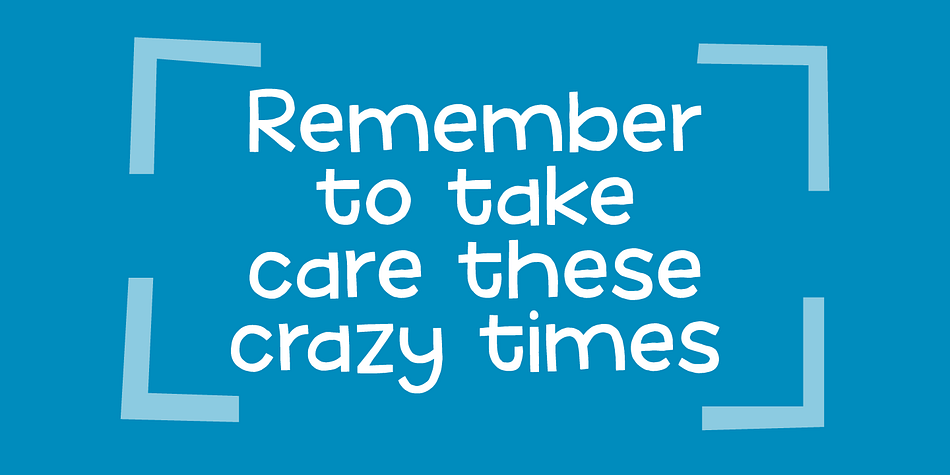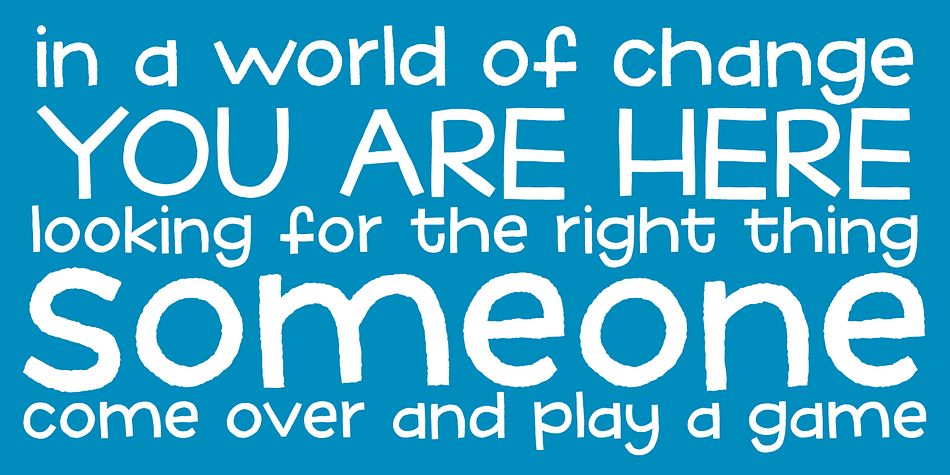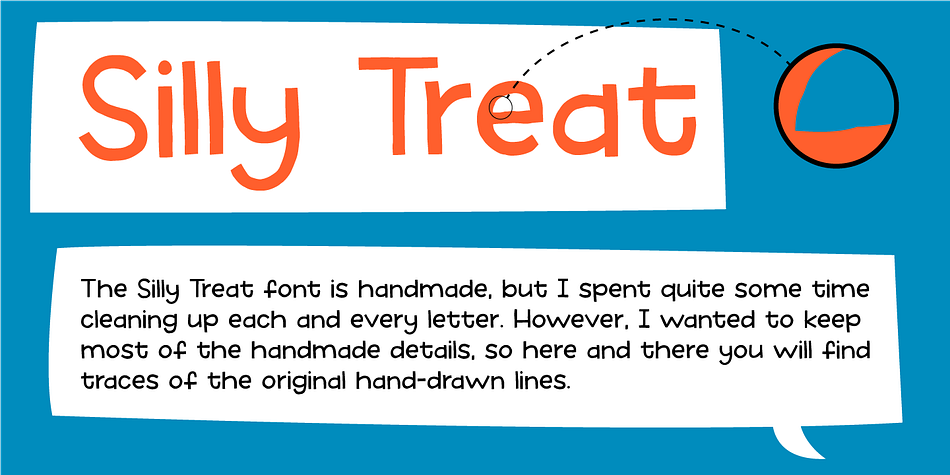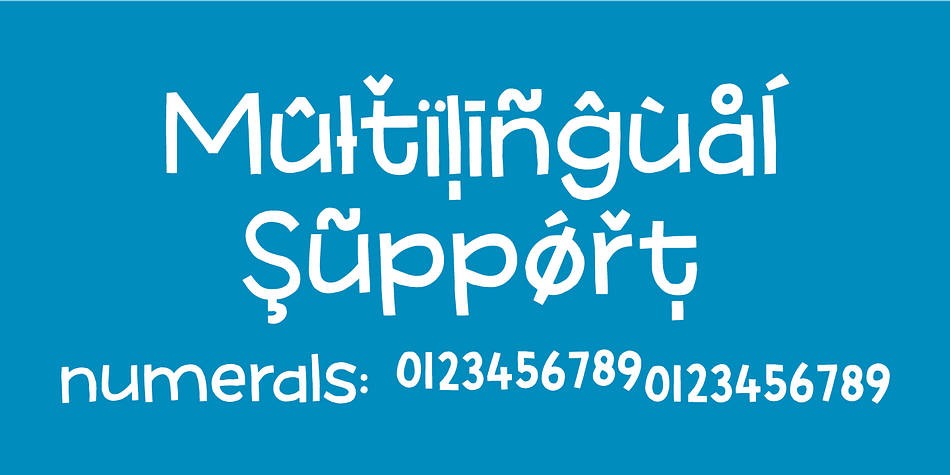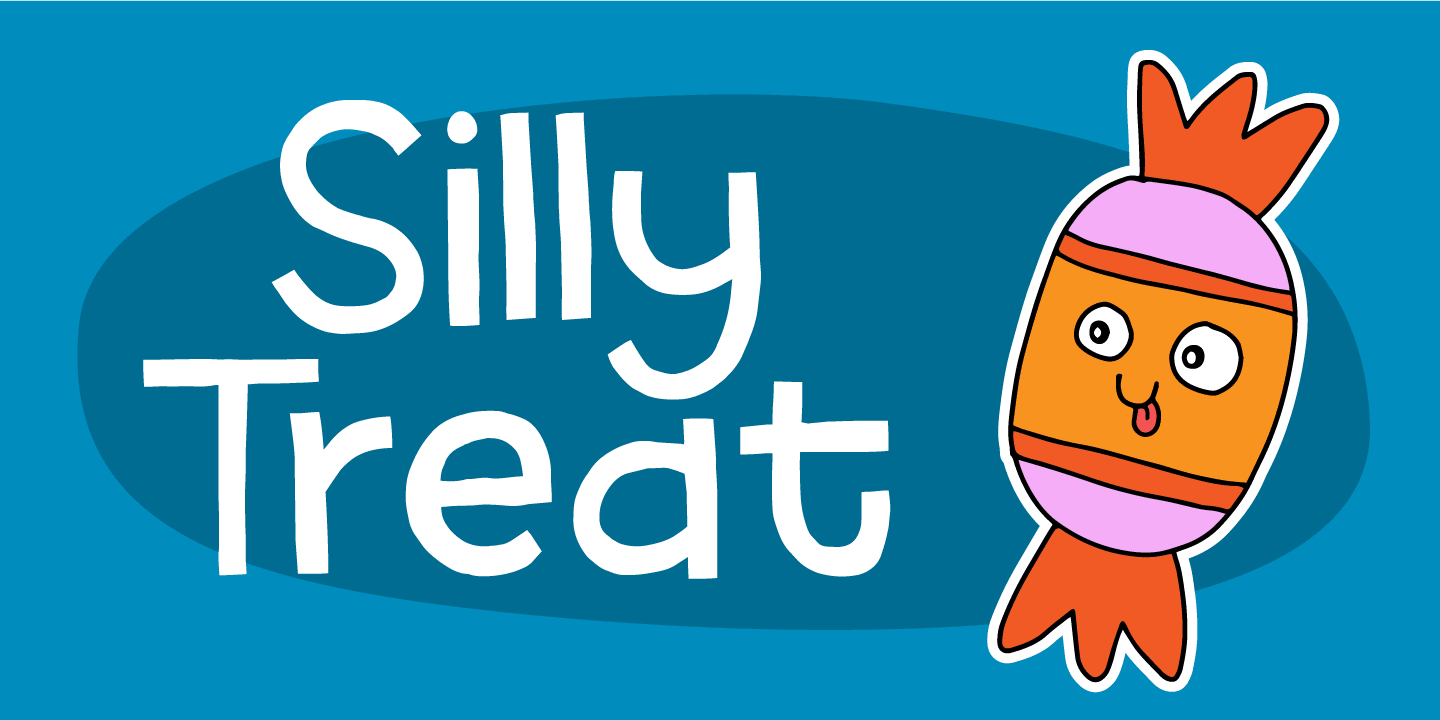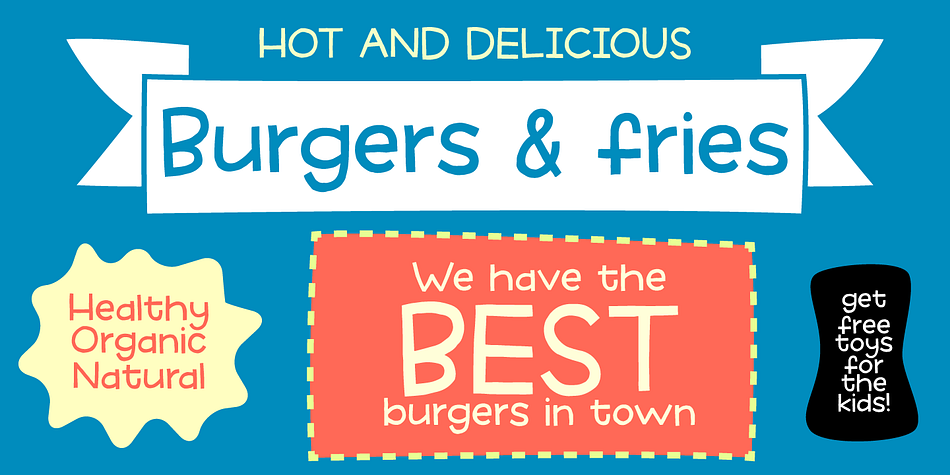
Designed by Jakob Fischer, Silly Treat is a hand display and kids font family. This typeface has two styles and was published by Pizzadude.dk.
The Silly Treat font is actually handmade, but I traced each and every letter and cleaned them up - however, I wanted to keep the handmade look, and left just about enough details for you to find details of my original drawn lines.